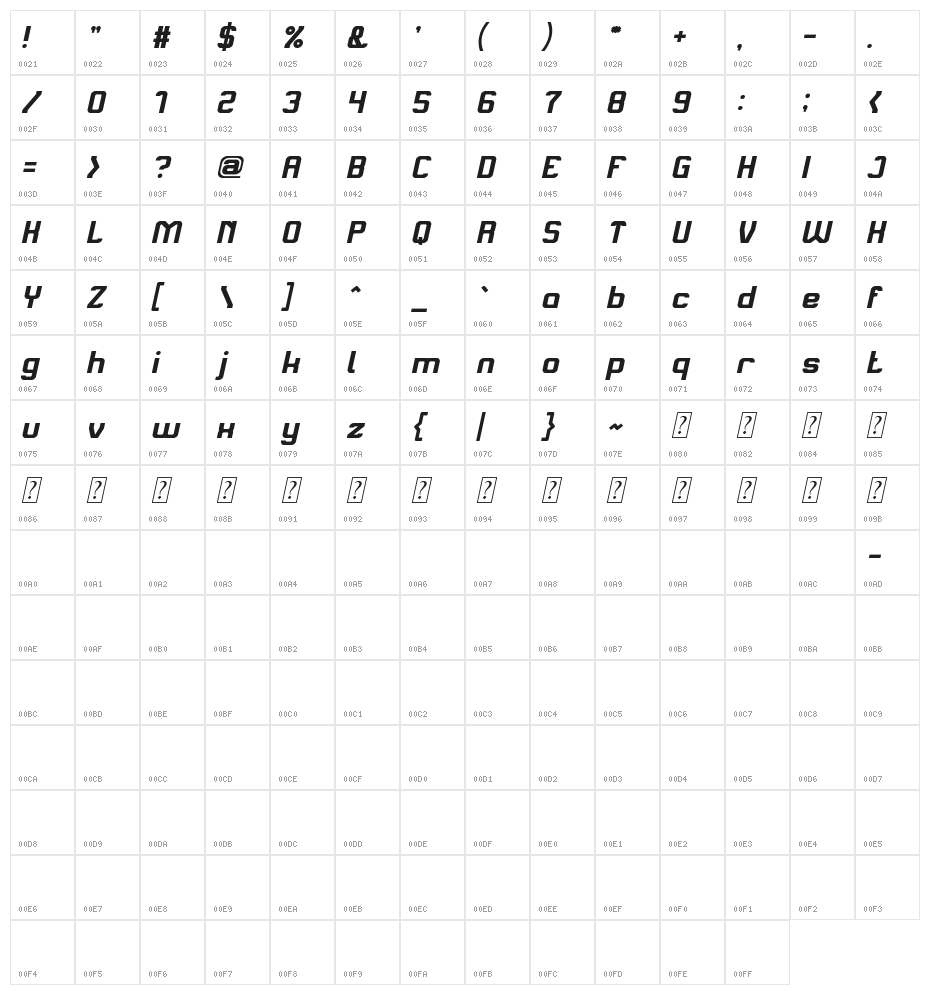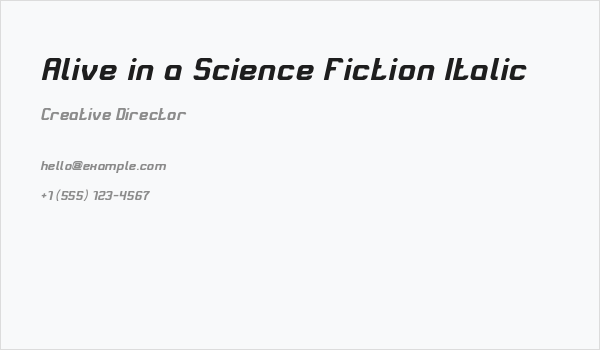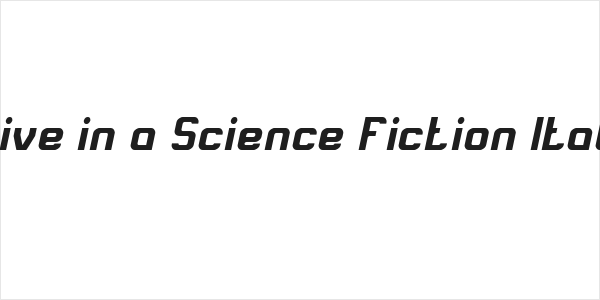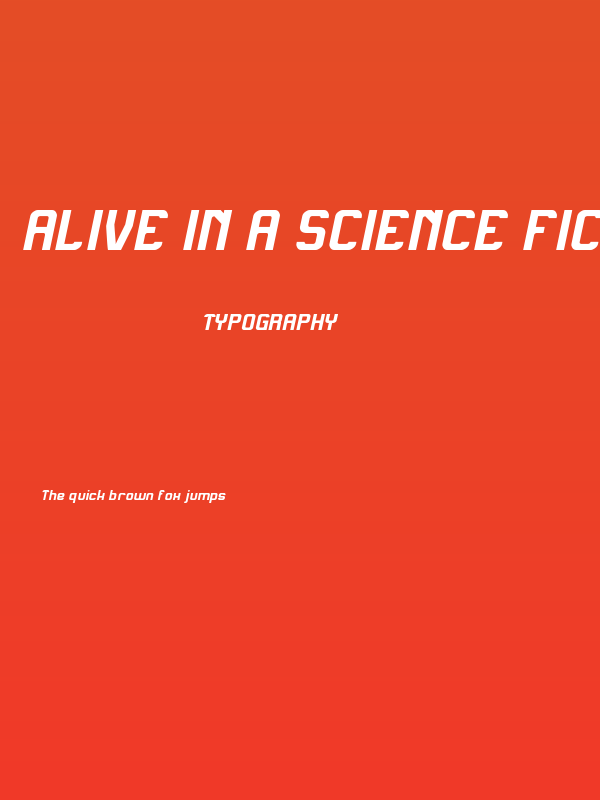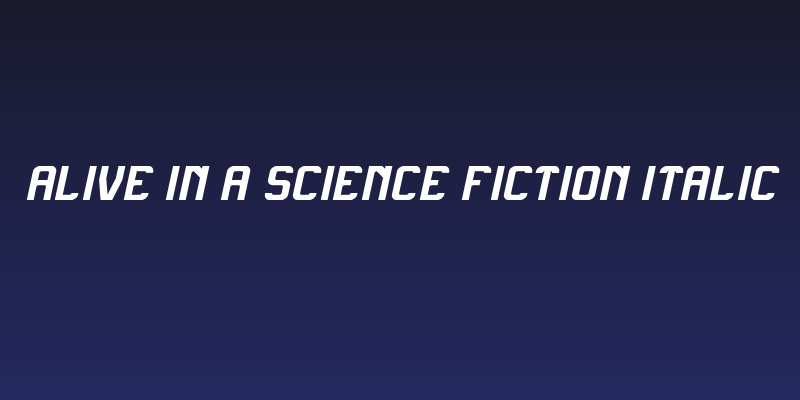
Alive in a Science Fiction Italic Font
Alive in a Science Fiction Italic Description
This font features a futuristic and dynamic design, characterized by its italicized and slightly condensed letterforms. The angular and geometric shapes give it a modern and sleek appearance, making it ideal for projects that require a sense of movement and innovation. The uppercase and lowercase letters maintain a consistent style, with sharp edges and a uniform stroke width that enhances readability. The numerals and special characters are designed to complement the overall aesthetic, ensuring versatility across various applications.
| Proposed Projects | Ideal for science fiction book covers, technology branding, video game interfaces, and futuristic posters. |